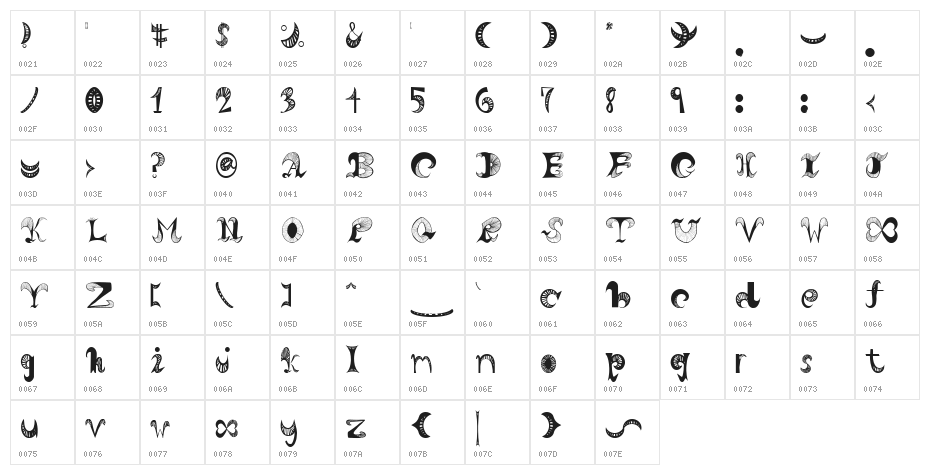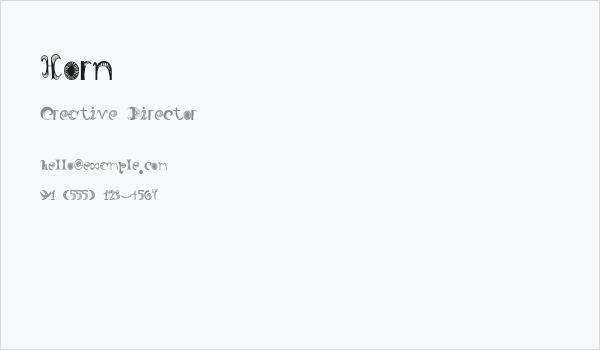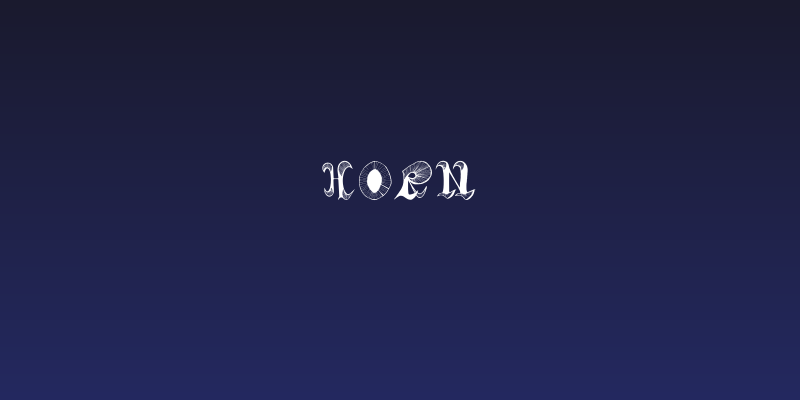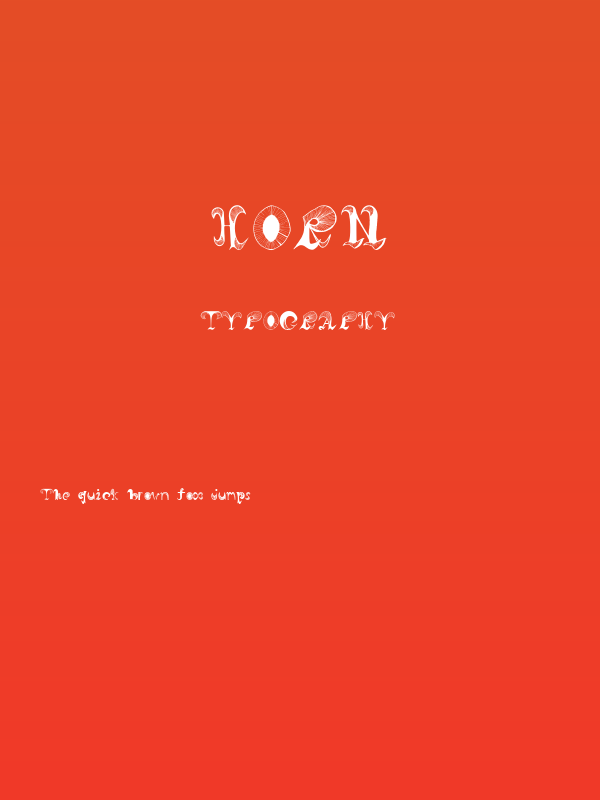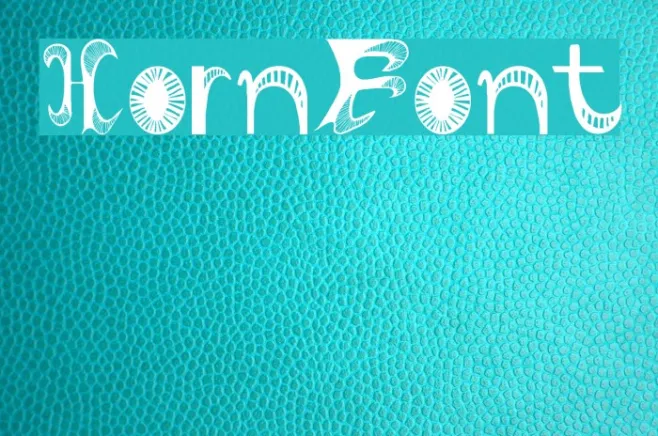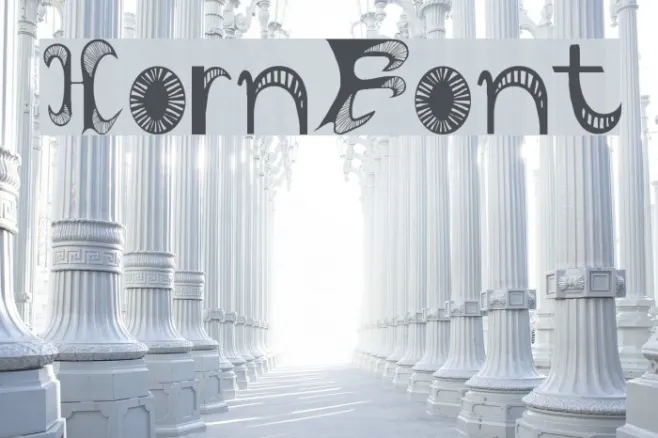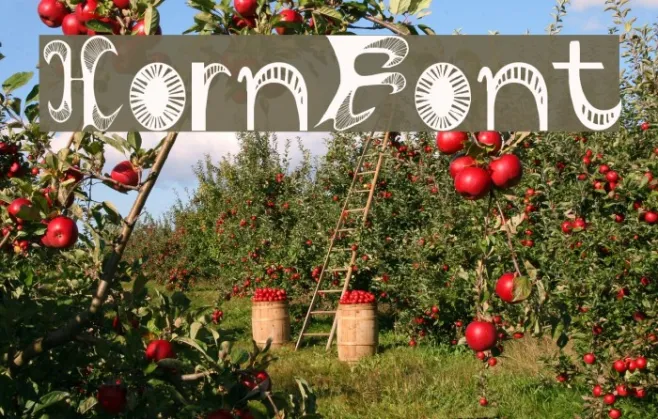
Horn Font
Horn Description
This font features a highly decorative and artistic style, characterized by intricate patterns and bold strokes. Each letter is uniquely designed with a combination of solid and textured elements, creating a dynamic visual effect. The uppercase letters are particularly elaborate, with swirling lines and ornate details that give them a whimsical appearance. The lowercase letters maintain a similar decorative theme but with slightly less complexity. Numbers and special characters follow the same artistic approach, making the entire set cohesive and visually striking. This font is ideal for projects that require a bold and artistic statement.
| Proposed Projects | Ideal for artistic posters, creative branding, unique invitations, and decorative headlines. |